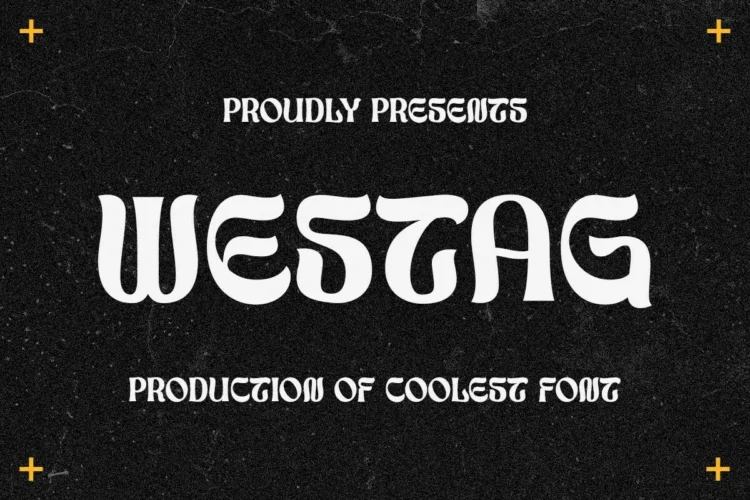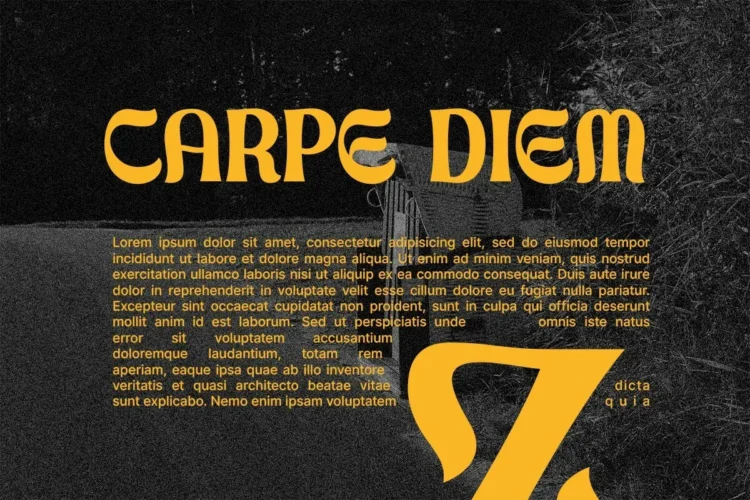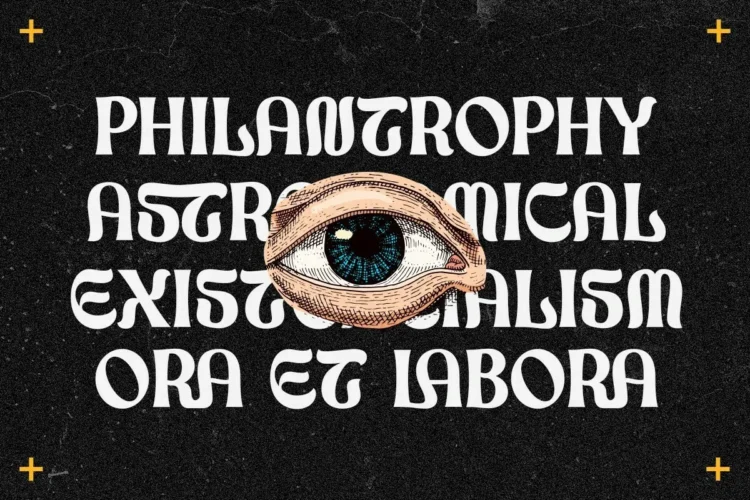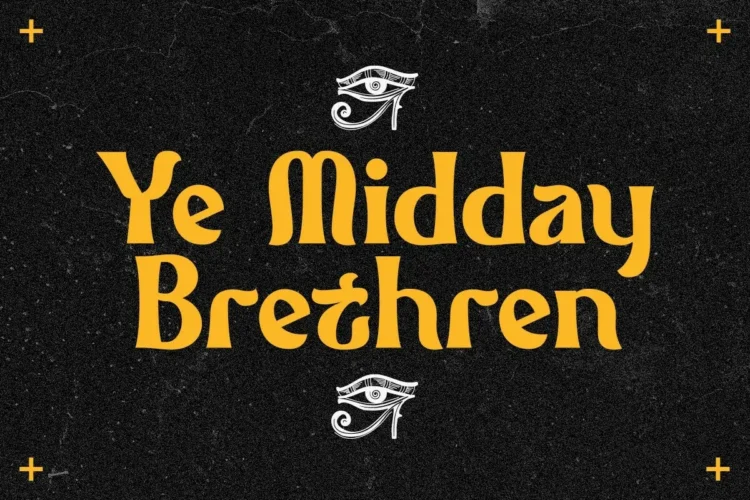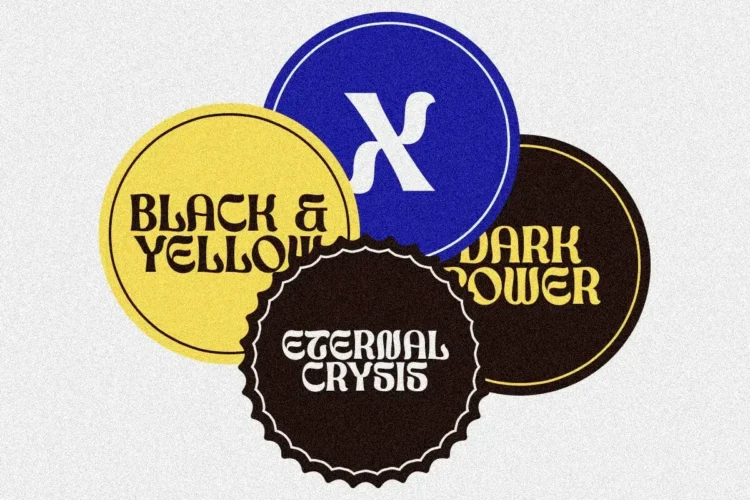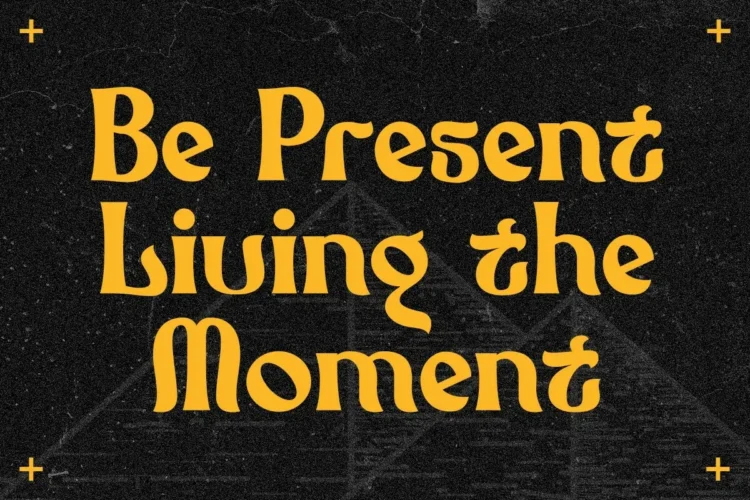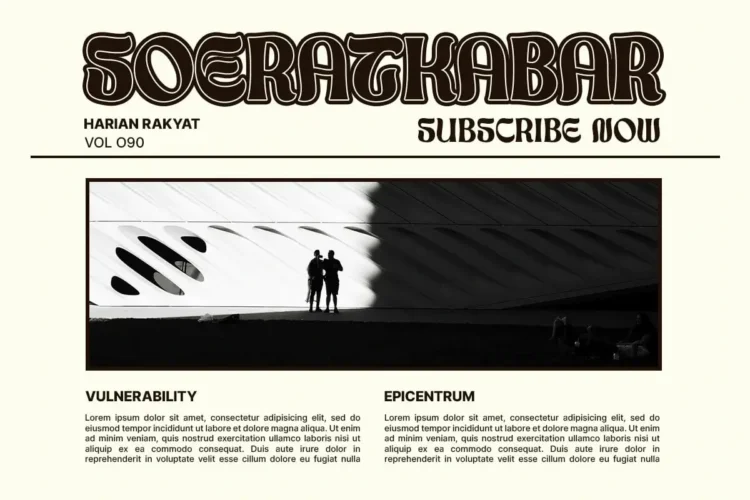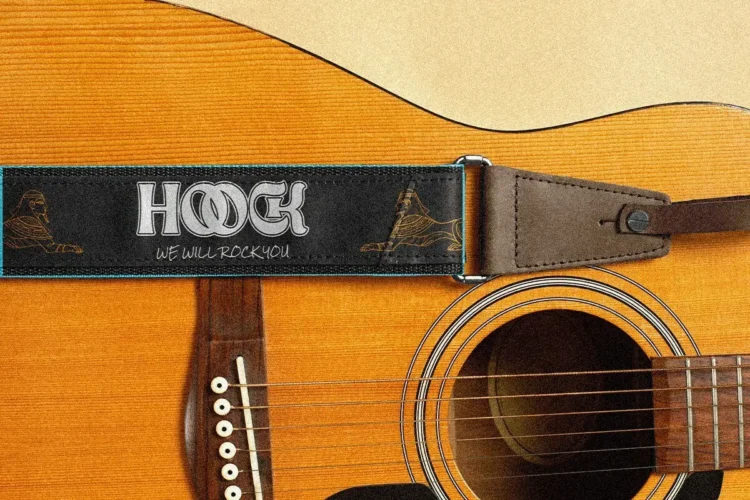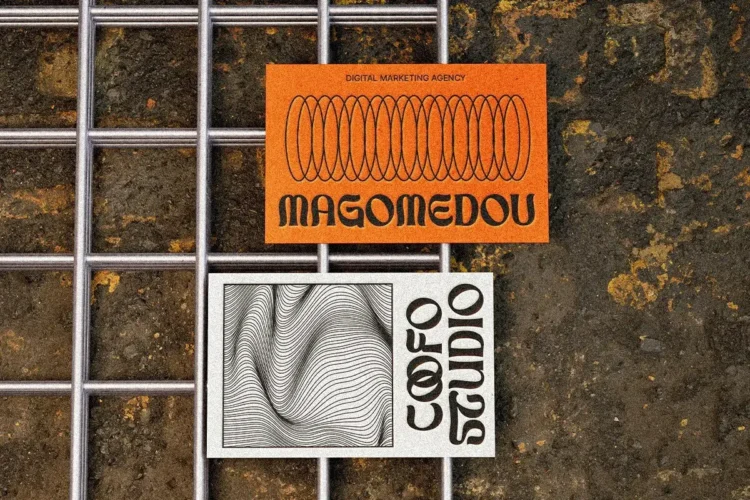
Westag Font
Westag Font: Modern Display Font for Aesthetic Branding & Luxury Designs
Elevate Your Designs with Westag: The Ultimate Modern Display Font
Discover Westag Font, a meticulously crafted typeface that blends contemporary edge with timeless elegance. Designed for maximum impact, Westag is more than just a font it’s a powerful tool for creators who want their work to command attention and exude sophistication. Its unique character set, visible in the provided samples, showcases a versatile range from bold and cool statements to refined and classic nuances.
• Ligature
Westag Font is versatile and works beautifully for :
• Branding & Logo Font: Create memorable and distinctive logos that form the cornerstone of a strong brand identity.
• Headline & Heading Font: Make your magazine covers, website banners, and article titles impossible to ignore.
• Poster & Cover Font: Design eye-catching movie posters, event flyers, book covers, and album art that pops.
• Luxury Goods & Packaging: Communicate quality and exclusivity for product packaging, boutique labels, and high-end goods.
• Editorial & Publishing: Use for striking titles and pull quotes in magazines, online publications, and zines.
• Digital Marketing: Perfect for social media graphics, YouTube thumbnails, and website headers that demand clicks and engagement.
Key Features of Westag Font:
• Modern Display Font: With its strong presence and clean lines, Westag is engineered for use in large sizes, making it an impeccable choice for any project that needs to be seen and remembered.
• Unique Ligatures: The font includes special connected characters (ligatures) that add a layer of custom, artistic flair to your headlines and logos, setting your work apart from generic typography.
• Aesthetic & Elegant Vibe: Whether it’s for a high-end brand or a creative poster, Westag carries an inherent aesthetic appeal and elegant tone that elevates the perceived value of your design.
• Cool & Confident: The font’s personality is undeniably cool and confident, perfect for brands that want to project a modern, forward-thinking image.
• Classic Foundation with a Twist: While feeling fresh and modern, Westag is built on a classic font foundation, ensuring its longevity and versatility across various trends.
Westag Font is a striking modern display font designed to make a statement. Its aesthetic and cool vibe makes it perfect for branding, logos, and posters. With unique ligatures and a confident presence, it adds an elegant, luxury touch to any project. Ideal for headlines, covers, and goods packaging, Westag ensures your design stands out with a classic yet contemporary feel.